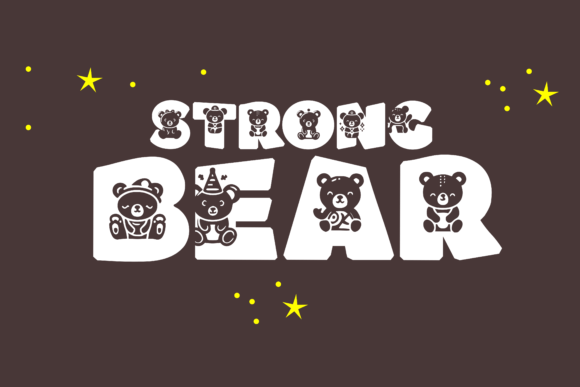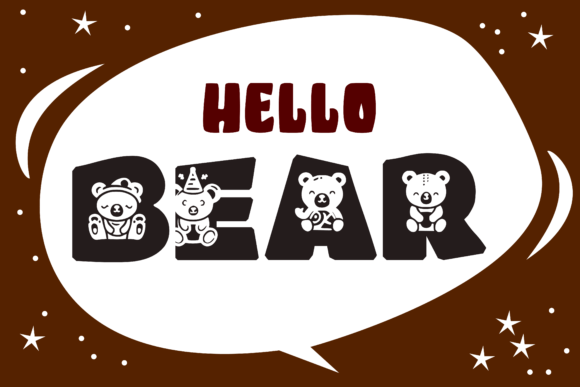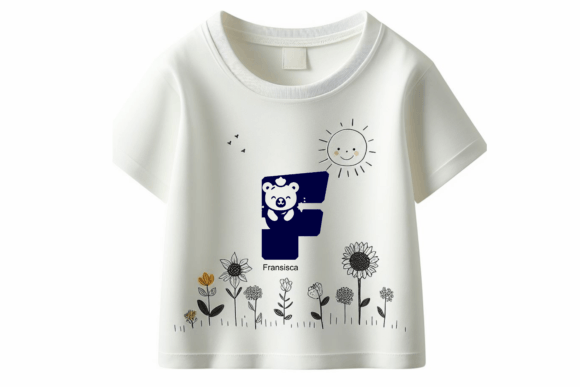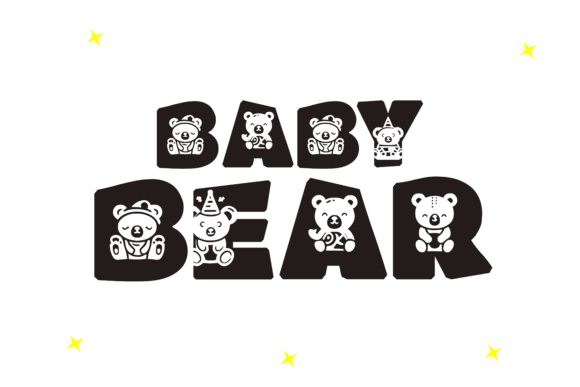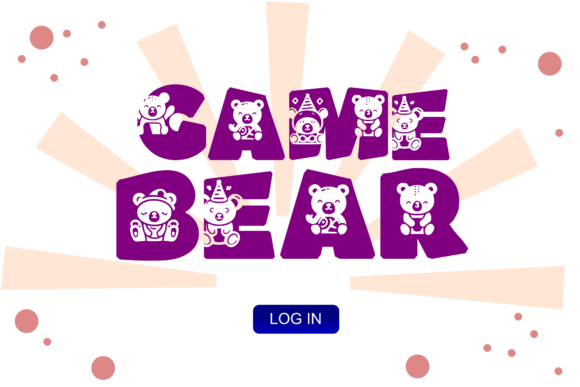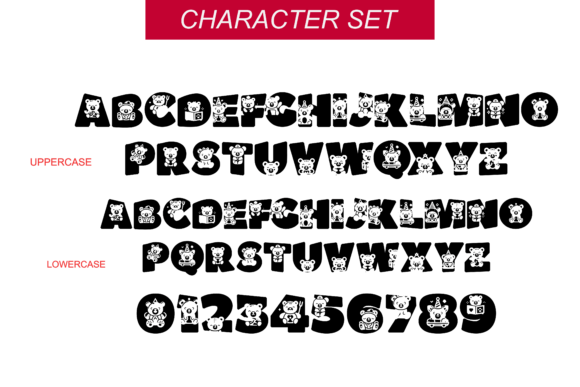
Bear Font: The Ultimate Choice for Whimsical Designs
Are you looking for a font that can add a touch of whimsy and playfulness to your designs? Look no further than Bear Font! This cool, bold, and friendly display font features a bear on each character, making it perfect for cartoon-related designs, children’s games, quotes, titles, book covers, posters, and more.
What Makes Bear Font So Special?
Bear Font is a unique and eye-catching font that is sure to grab attention. Each character in the font features a bear, which gives it a fun and playful feel. The font is bold and easy to read, making it perfect for headlines, titles, and other applications where you want to make a statement.
Uses for Bear Font
Bear Font is a versatile font that can be used in a variety of ways. Here are some ideas to get you started:
- Cartoon-related designs: Bear Font is a natural fit for cartoon-related designs, such as character designs, comics, and animated films.
- Children’s games: The font’s playful and fun feel makes it perfect for children’s games, puzzles, and educational materials.
- Quotes and titles: Use Bear Font to add a touch of whimsy to your quotes and titles. It’s perfect for social media posts, blog headers, and more.
- Book covers: Bear Font can add a fun and playful touch to your book covers, especially for children’s books, comics, and graphic novels.
- Posters: Use Bear Font to create eye-catching posters for events, promotions, and more.
Why Designers and Crafters Love Bear Font
Designers and crafters love Bear Font for its unique and playful feel. Here are some reasons why:
- Easy to read: Despite its bold and playful feel, Bear Font is easy to read, making it perfect for headlines, titles, and other applications where readability is important.
- Versatile: Bear Font can be used in a variety of ways, from digital designs to print materials.
- Fun and playful: The font’s fun and playful feel makes it perfect for designs that require a touch of whimsy.
Tips for Using Bear Font
Here are some tips for using Bear Font in your designs:
- Use it sparingly: Bear Font is a bold and playful font, so use it sparingly to avoid overwhelming your design.
- Pair it with other fonts: Bear Font pairs well with other fonts, such as sans-serif fonts, to create a visually appealing design.
- Experiment with colors: Bear Font looks great in a variety of colors, so experiment with different colors to find the one that works best for your design.
Bear Font is a unique and versatile font that is perfect for designers and crafters who want to add a touch of whimsy to their designs. With its bold and playful feel, Bear Font is sure to grab attention and make your designs stand out. Whether you’re creating cartoon-related designs, children’s games, quotes, titles, book covers, posters, or just any creation that requires a whimsical touch, Bear Font is a great choice.